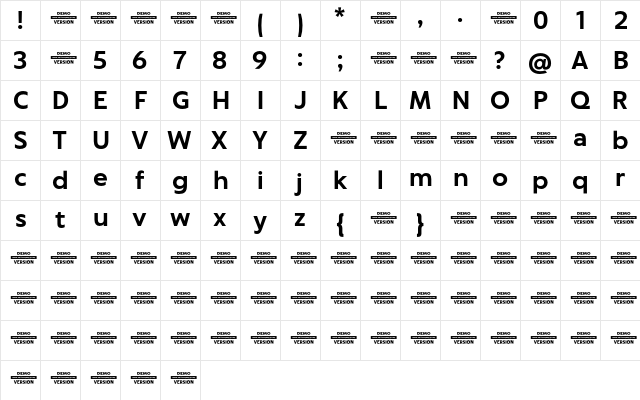
Captura Bold Demo
| Designer | Anita J߲geleit |
Design Context for Captura Typeface
Captura is a composed and adaptable typeface that performs quietly and consistently across a wide range of design contexts. Its bold stroke weight gives it real presence on the page.